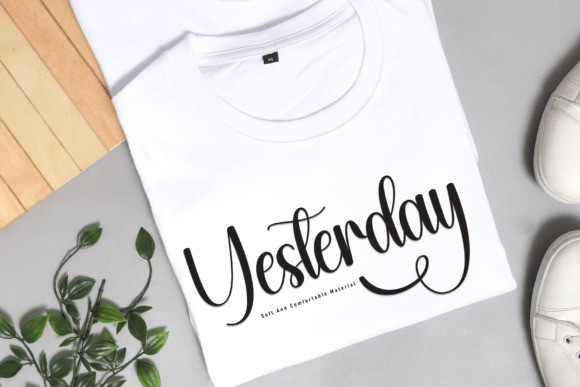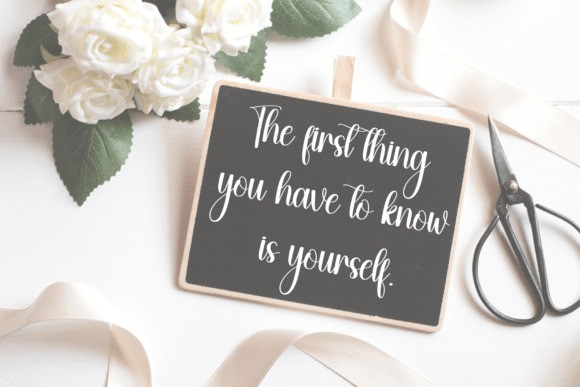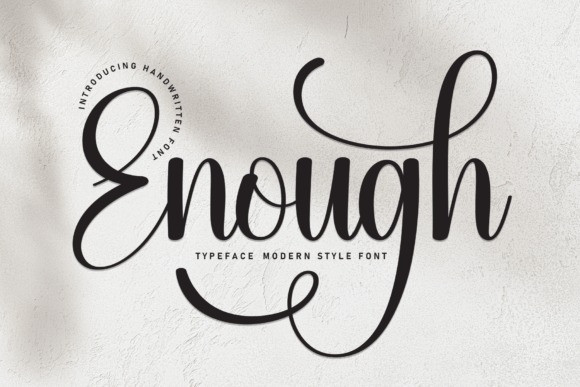
Enough Script Font
Enough Script Font is a gracefully crafted handwritten font that exudes sophistication and simplicity. With its fluid strokes and delicate curves, this font adds a touch of elegance to any project. Perfect for invitations, cards, or any design where a personal and refined touch is desired.